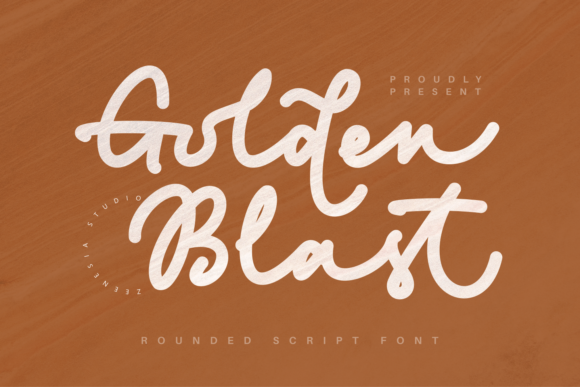
Unleash the Enchantment of Golden Blast: A Dazzling Script Font to Ignite Your Designs
Journey into the realm of typography and unveil the captivating allure of Golden Blast, a script font that radiates elegance and sophistication. Meticulously crafted with intricate details, Golden Blast possesses a captivating charm that will transform your designs into masterpieces. Its enchanting curves and delicate flourishes dance across the page, adding an aura of magic to every word.
As a script font, Golden Blast exudes a timeless beauty that evokes a sense of nostalgia and romance. Its graceful lines flow effortlessly, creating a harmonious visual symphony that captures the essence of handwritten calligraphy. Whether you're designing wedding invitations, branding materials, or social media posts, Golden Blast will infuse your creations with a touch of timeless elegance.
Beyond its aesthetic appeal, Golden Blast is a versatile font that adapts seamlessly to a wide range of design projects. Its inherent charm lends itself effortlessly to logos, posters, and brochures, adding a touch of sophistication that commands attention. Whether you seek to craft a vintage-inspired design or inject a modern edge into your work, Golden Blast effortlessly rises to the occasion.
For web designers and developers, Golden Blast emerges as a beacon of creativity. Its carefully crafted characters render beautifully on digital screens, ensuring your website or application exudes professionalism and refinement. Its crisp lines and legible forms enhance user experience, making your content easily accessible and visually appealing.
But Golden Blast's allure extends far beyond mere aesthetics. This font possesses an uncanny ability to evoke emotions and create lasting impressions. Its intricate details and elegant curves whisper tales of love, joy, and inspiration, leaving an indelible mark on the hearts of your audience.